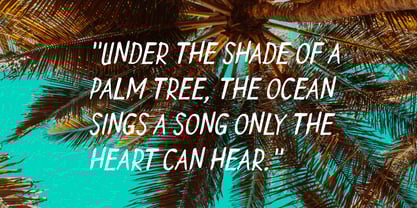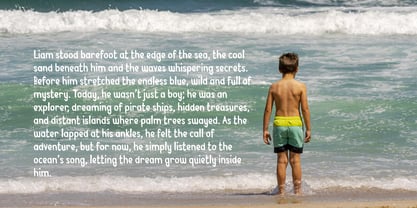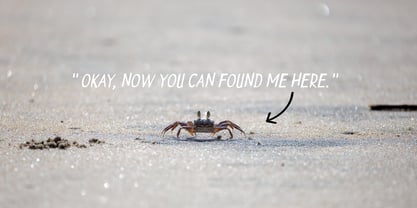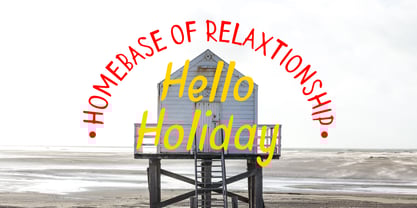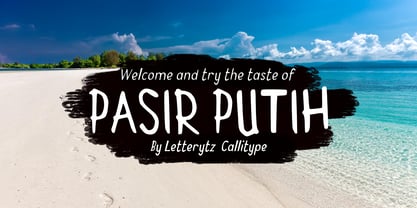
Pasir Putih
by Letterytz CalliType
The Pasir Putih Font Family was designed by Wahyu Eka Prasetya, Dian Angga Marytama and published by Letterytz CalliType. Pasir Putih contains 2 styles and family package options.
Pasir Putih – Regular & Oblique
Pasir Putih is a charming handwritten font inspired by the soft, effortless beauty of white sandy beaches.
With its casual, playful strokes and friendly character shapes, Pasir Putih Regular brings a fresh, natural feel to any design project. Paired with the dynamic Pasir Putih Oblique, you can easily add energy, movement, and a more expressive tone to your creative work.
Carefully hand-drawn to maintain an organic and authentic flow, Pasir Putih is perfect for projects that call for a human touch, a relaxed spirit, and a sense of adventure.
• Pasir Putih Regular (Straight Upright Handwritten Style)
• Pasir Putih Oblique (Natural Slanted Version for More Movement)
• Complete Uppercase & Lowercase Letters
• Numbers and Punctuation
• Supports Multilingual Characters
• Beach and Travel-themed Designs
• Branding, Logos, and Packaging
• Posters, Flyers, and Social Media
• Merchandise and Apparel
• Quotes, Greeting Cards, and Book Covers
Pasir Putih brings a breeze of creativity to your work — fresh, warm, and full of life. Dive into your next project with the easygoing charm of Pasir Putih!